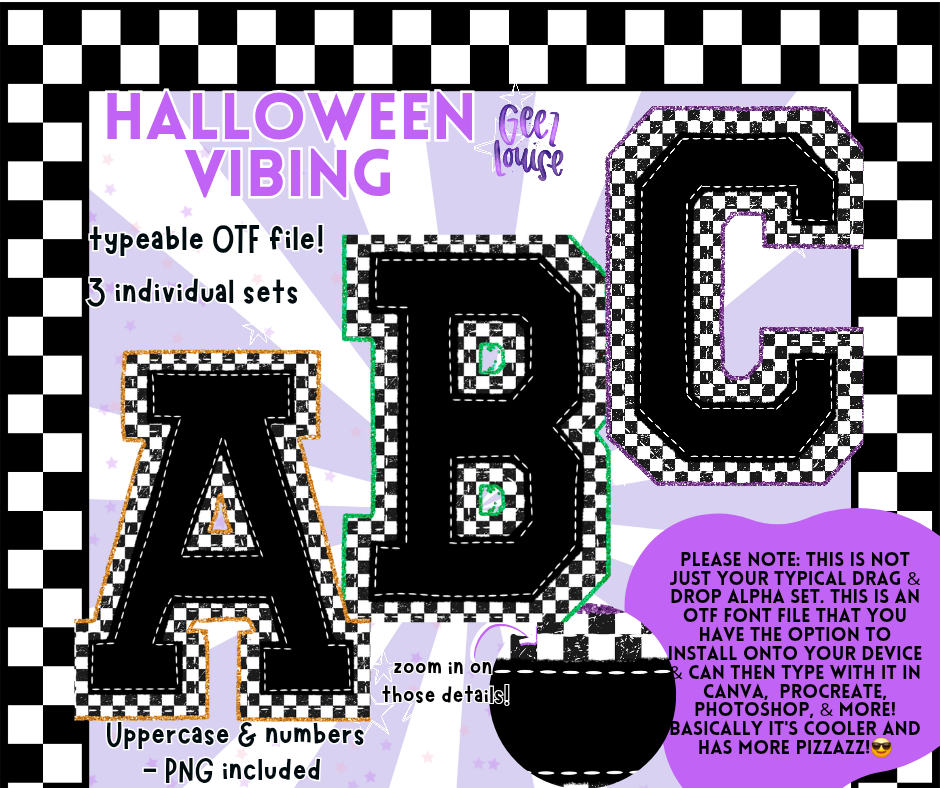
This ain’t your average alpha drop. The Halloween Vibing typeable OTF font set is LOADED with bold checkered character and comes in three individual styles with serious attitude.
🕸 3 unique alphabet sets
Checkerboard, contrast stitching, and just enough edge to make your designs scream... well, extra. From boo-tiful banners to fall flyers, this font's got main character energy.